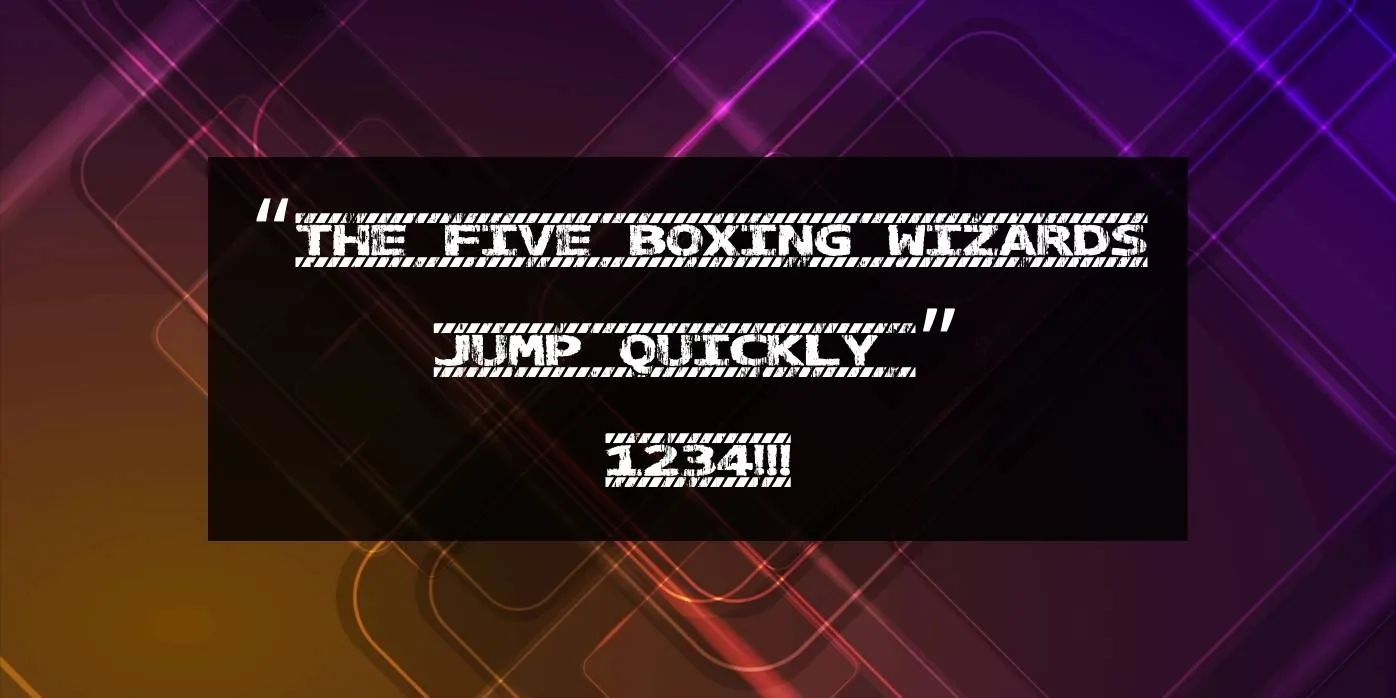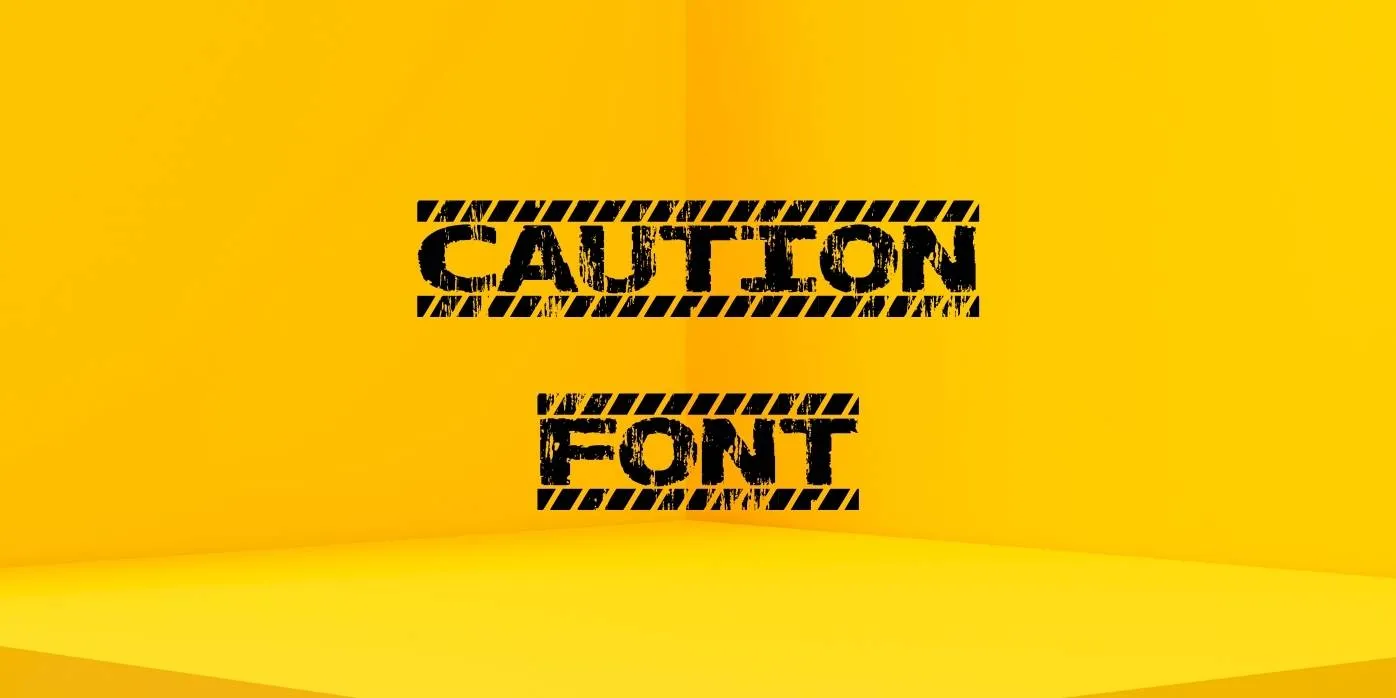
Caution Font
Here, we present the Caution Font family that belongs to the fancy font family. This typeface was designed by Jayde Garrow. This stunning font has a very high readability level and is perfect for both headlines and paragraphs of text. This fancy typeface supports a large number of languages.
It is a multipurpose font that can be used in various designs. It’s perfect for headlines, logos, branding, and web design. Caution is available in two styles: Regular and Bold. The Regular style is ideal for body copy, while the Bold style is more suitable for headlines and display text.
This family is not included in google fonts. Another similar font which is the aesthetic font is perfect for different designs. This tremendous typeface has keen and clean features with a unique touch. Caution Font is an all-caps typeface that comes in two styles.